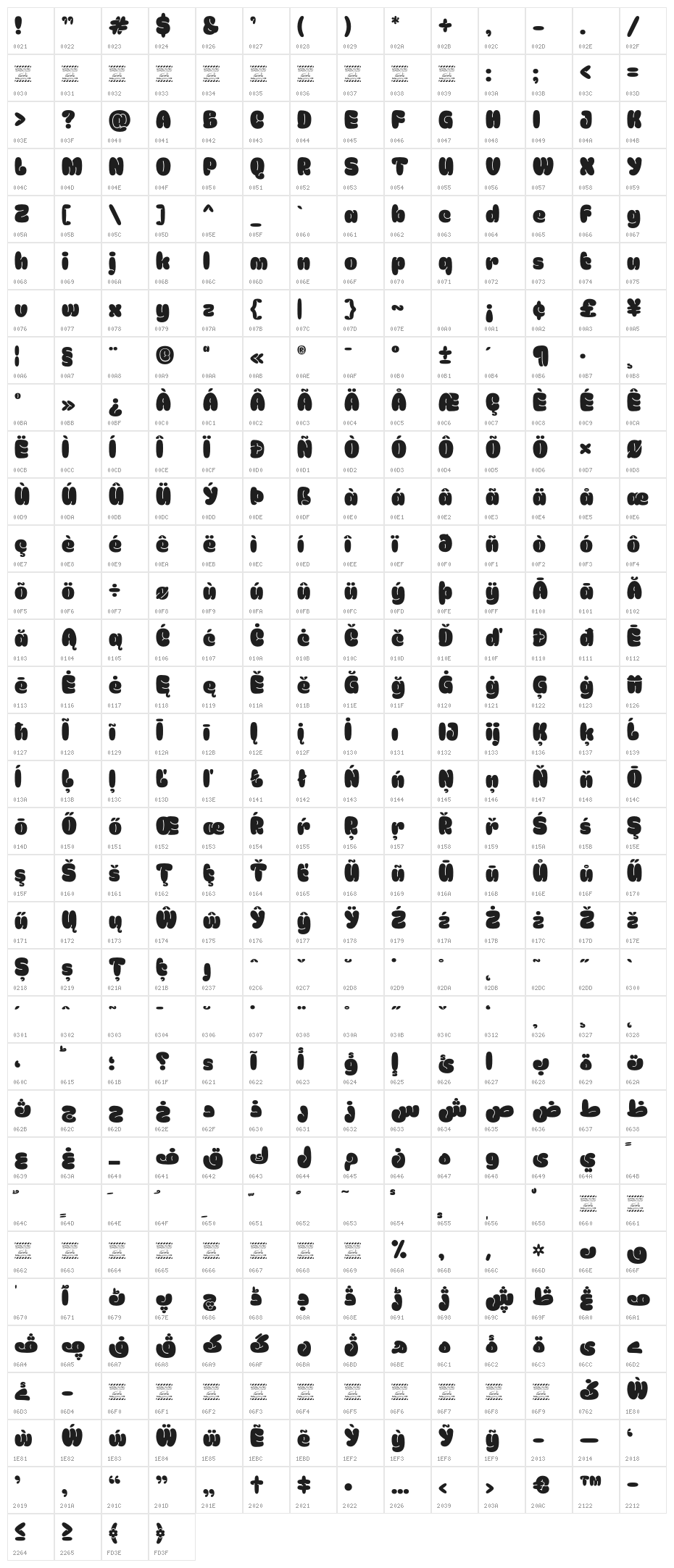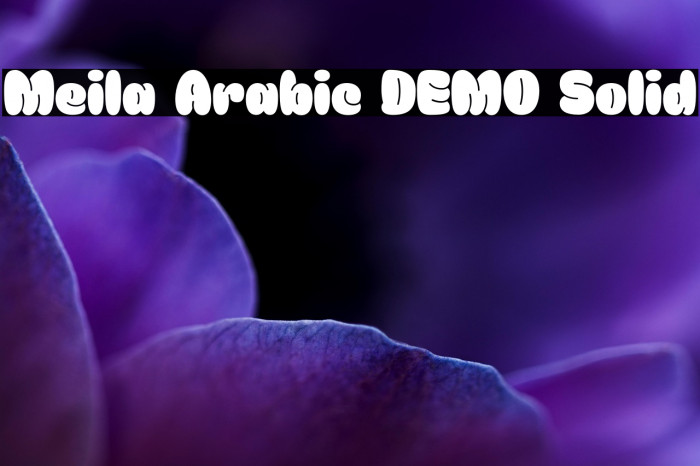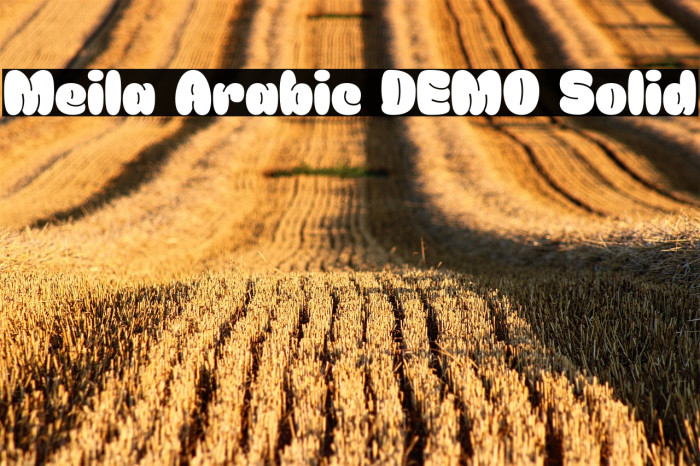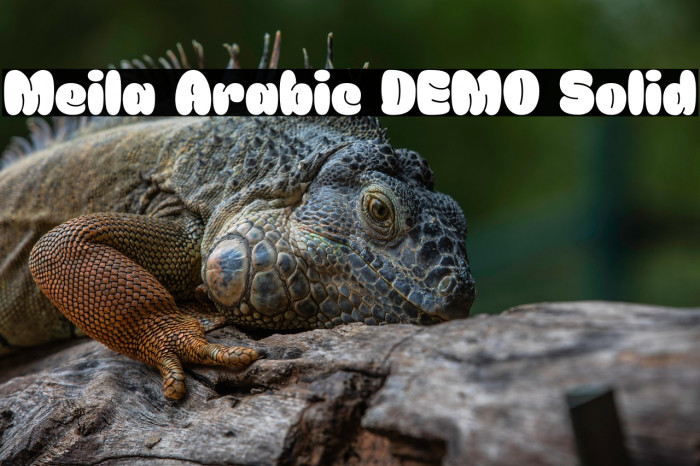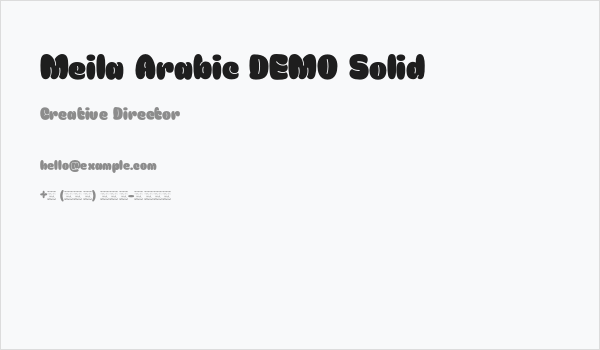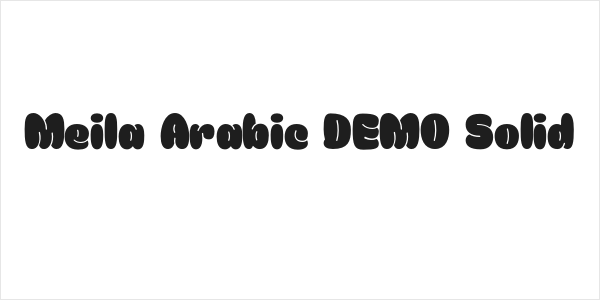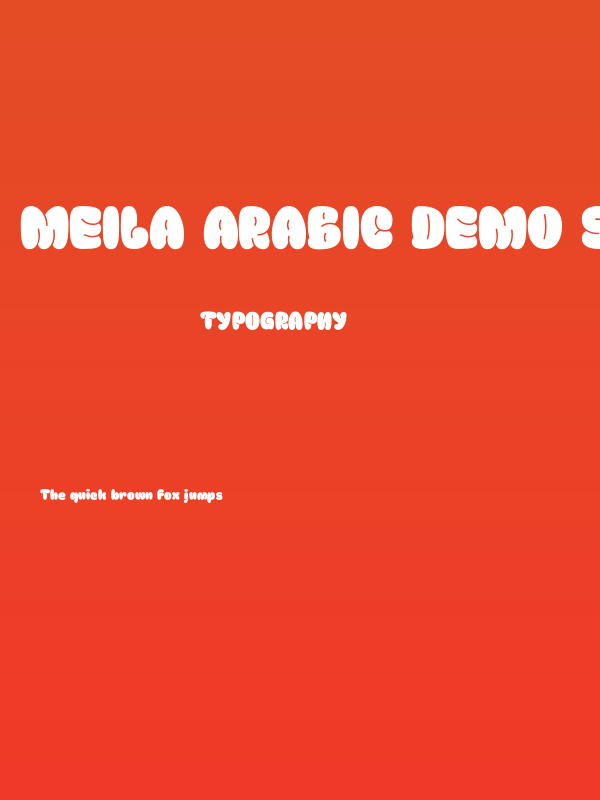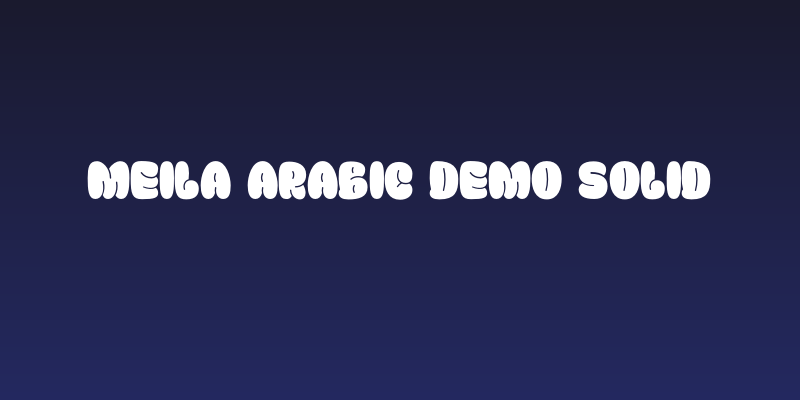
Meila Arabic DEMO Solid Font
Meila Arabic DEMO Solid Description
This font features a bold and playful design with rounded, bubble-like characters that convey a sense of fun and creativity. The letters are thick and solid, with a consistent stroke width that gives them a strong presence. The overall appearance is smooth and flowing, making it suitable for eye-catching designs. The characters are closely spaced, enhancing the compact and cohesive look of the text. This font is ideal for projects that require a lively and energetic feel, such as children's books, playful branding, or creative posters.
| Overall Style | Playful, Modern |
| Proposed Projects | Children's books, playful branding, creative posters, event invitations, and merchandise design. |